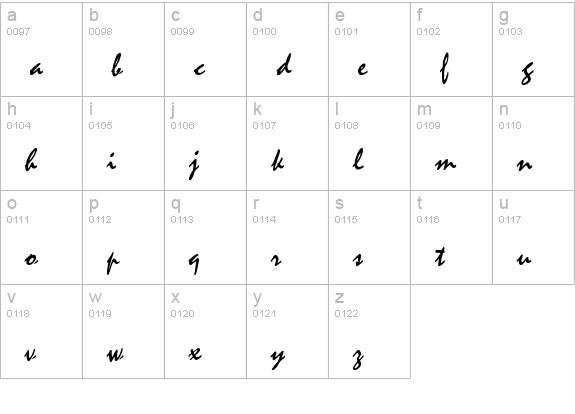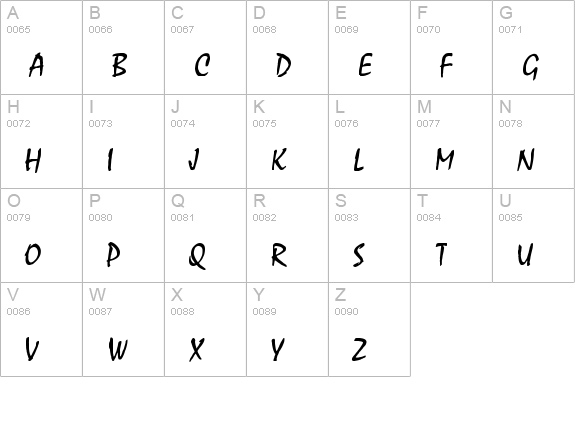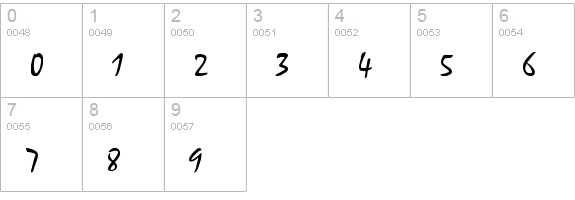
Mystical-Thin Font Details
Mystical-Thin is a delicate, low-contrast variant in the Mystical typeface family \xE2\x80\x94 well suited to fashion editorial, minimal branding, and high-contrast display.
Introducing Mystical-Thin, a captivating and enchanting font that will add a touch of magic to your designs. With its delicate and ethereal appearance, Mystical-Thin is perfect for creating mystical and whimsical projects. This font exudes an otherworldly charm that will captivate your audience and transport them to a realm of fantasy. Mystical-Thin is not only visually stunning but also incredibly versatile, making it suitable for a wide range of design projects. Whether you're working on invitations, posters, logos, or branding materials, this font will bring a mystical and elegant touch to your work. And the best part? Mystical-Thin is completely free to download at FontsMarket.com. So go ahead and unleash your creativity with this enchanting font that is sure to make your designs stand out.